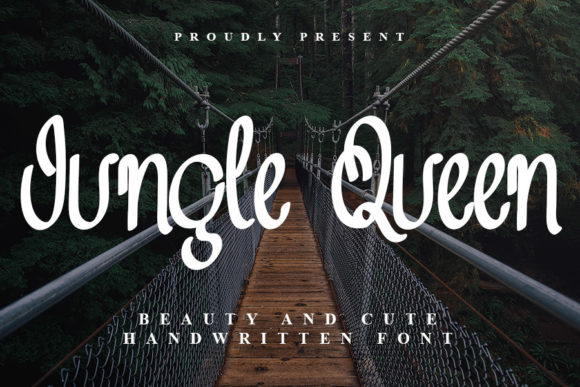
About Jungle Queen Font
Jungle Queen is a whimsical handwritten font with a relaxed and lovely style that adds a touch of playfulness and charm to your designs. No matter the topic, this font is a valuable asset to your fonts library, as it has the potential to elevate any creation and make it stand out.
The whimsical nature of Jungle Queen sets it apart and adds a sense of joy and imagination to your designs. The font’s relaxed and lovely style creates a visually appealing composition that captures attention. It adds a touch of playfulness and charm, making your creations visually engaging and memorable.
Jungle Queen’s versatility makes it suitable for a wide range of topics and design projects. Whether you’re working on children’s books, nature-inspired designs, event invitations, or any other creative endeavor, this font brings a delightful and whimsical touch. Its relaxed and lovely style enhances the overall aesthetic and creates a visually captivating experience for viewers.
By incorporating Jungle Queen into your designs, you infuse them with a sense of whimsy and charm. The font’s playful and relaxed handwritten style adds a touch of joy and imagination, elevating your creations to a new level of visual appeal. Embrace the whimsical nature of Jungle Queen, and watch as it enhances the look of your designs, making them visually stunning and captivating.
In summary, Jungle Queen is a whimsical handwritten font with a relaxed and lovely style. Its playful and charming nature creates a visually appealing composition. Embrace the versatility of Jungle Queen, and let it elevate the look of your designs, adding a touch of joy and imagination that captures attention and leaves a lasting impression.